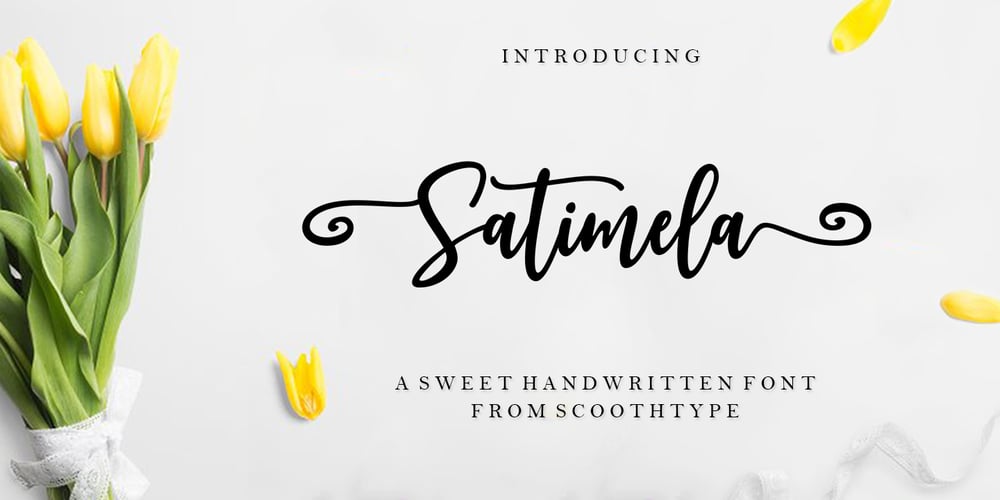
Satimela Font Family was designed by Muammar and published by Scoothtype. Satimela contains 3 styles and family package options. Meet Satimela Script, a modern wedding calligraphy font that lends a modern edge to wedding stationery, elegant logos and branding, websites, calligraphy quotes, and more! Included are a full set of beginning and ending lowercase swashes, for a custom handwritten look.Satimela Script Features- Full Set of standard – Alphabet and punctuation- Extra set of Beginning – Ornament- Extra set of beginning swashed lowercase- Three full sets of ending lowercase alternates- Extra stylistic alternates and ligaturesPUA Encoded – no special software needed to access extra swashed charactersMultilingual Characters (ÁÂÄÀÅÃÆÇÐÉÊËÈÍÎÏÌÑÓÔÖÒØÕŒÞÚÛÜÙẂŴẄẀÝŶŸỲ áâäàåãæçðéêëèíîïìñóôöòøõœþßúûüùẃŵẅẁýŷÿỳŠšŽž€£¥ªº)